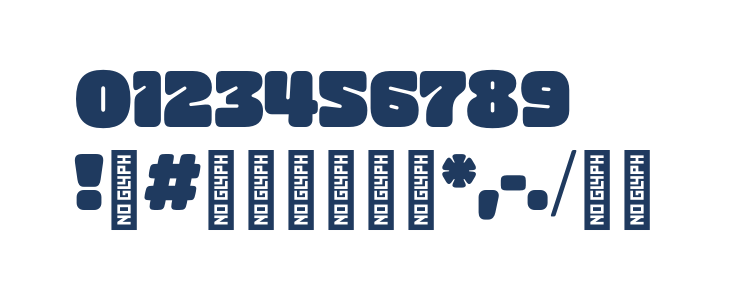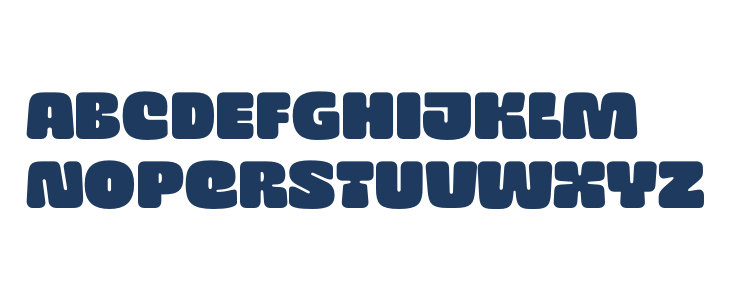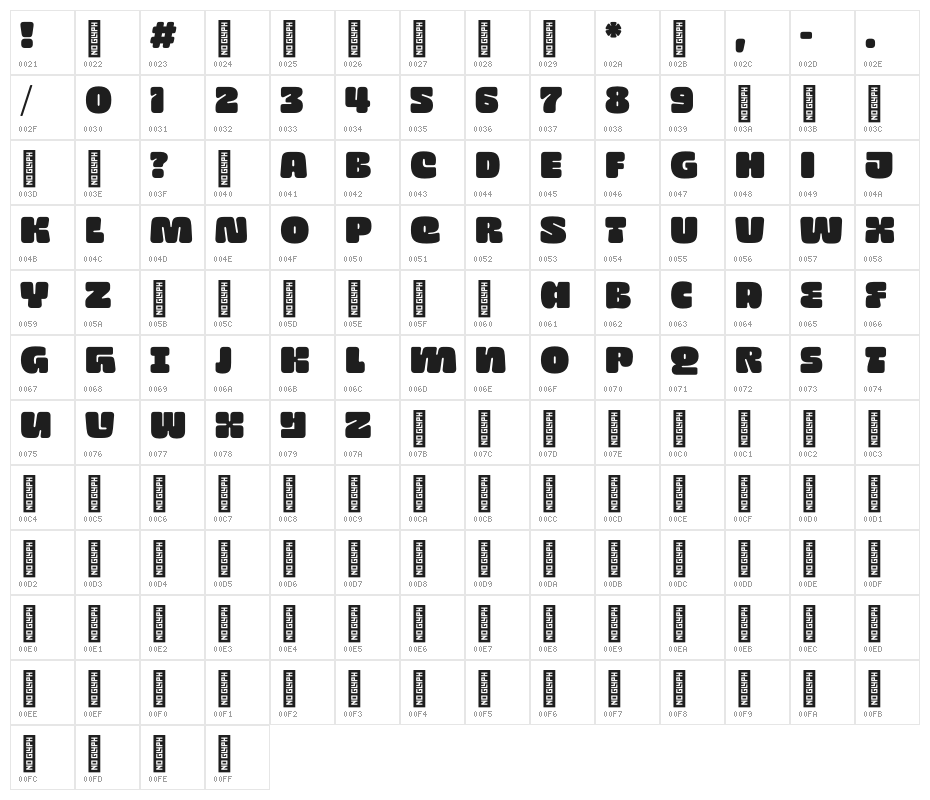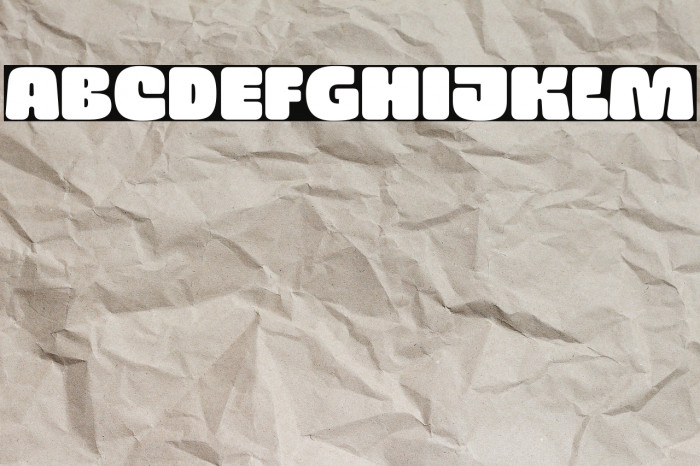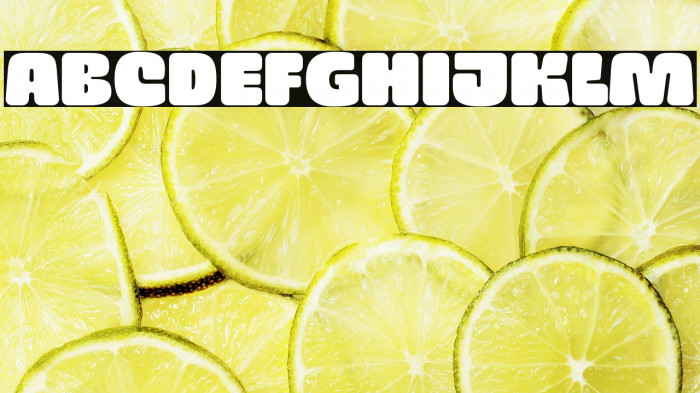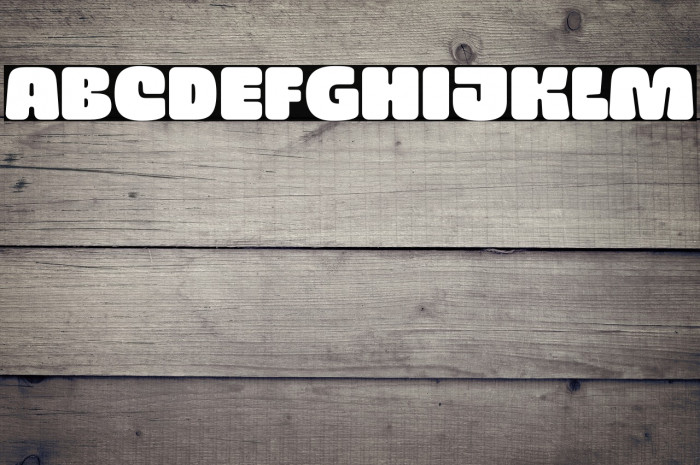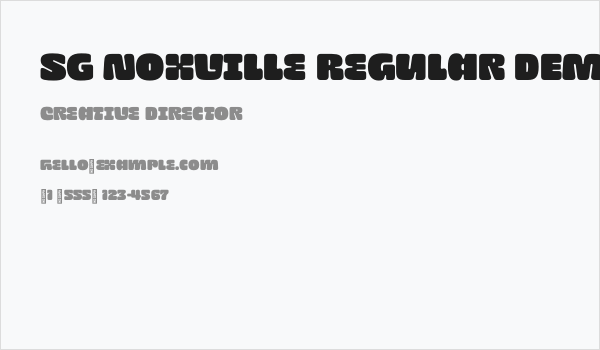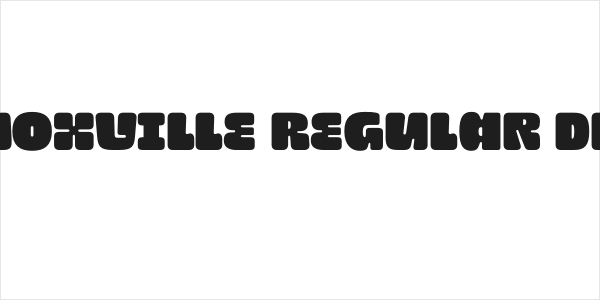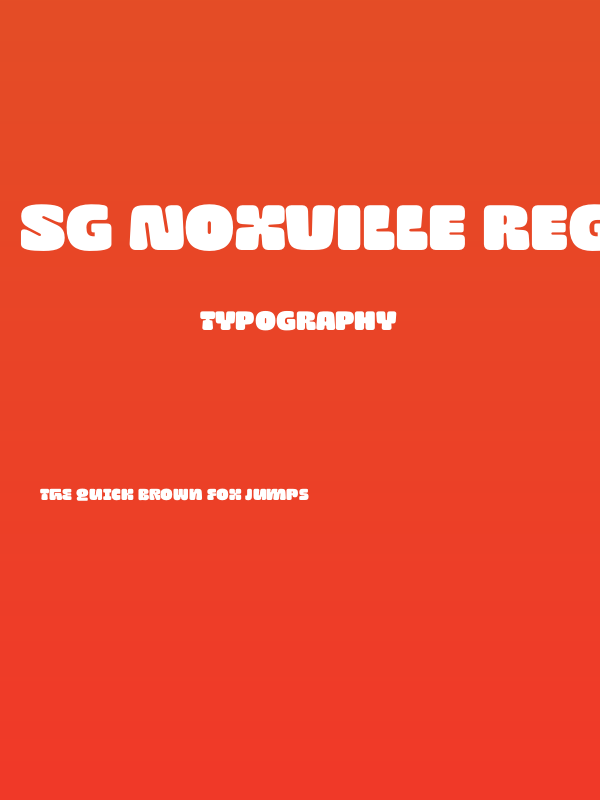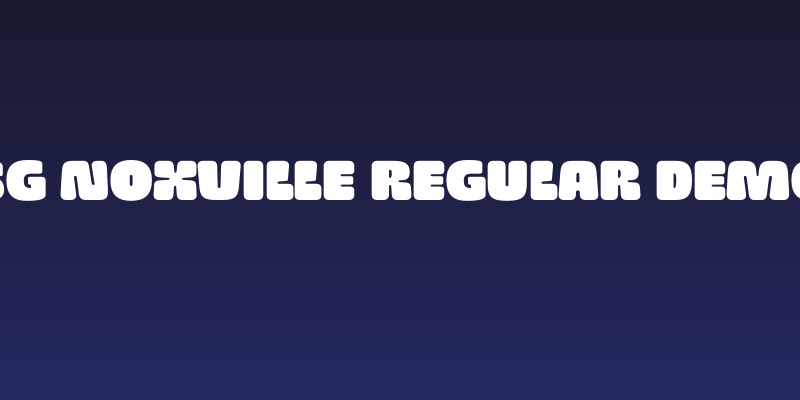
SG Noxville Regular DEMO Font
SG Noxville Regular DEMO Description
A bold, rounded, geometric sans-serif typeface with heavy weight and playful, blocky letterforms. The characters have uniform stroke thickness and soft corners, giving a friendly and approachable appearance.
| Overall Style | Decorative, Playful, Modern |
| Use Case | Headlines, Logos, Posters, Display text |
| Proposed Projects | Posters, childrenΓ’β¬β’s books, branding, packaging, event flyers, headlines, logos. |